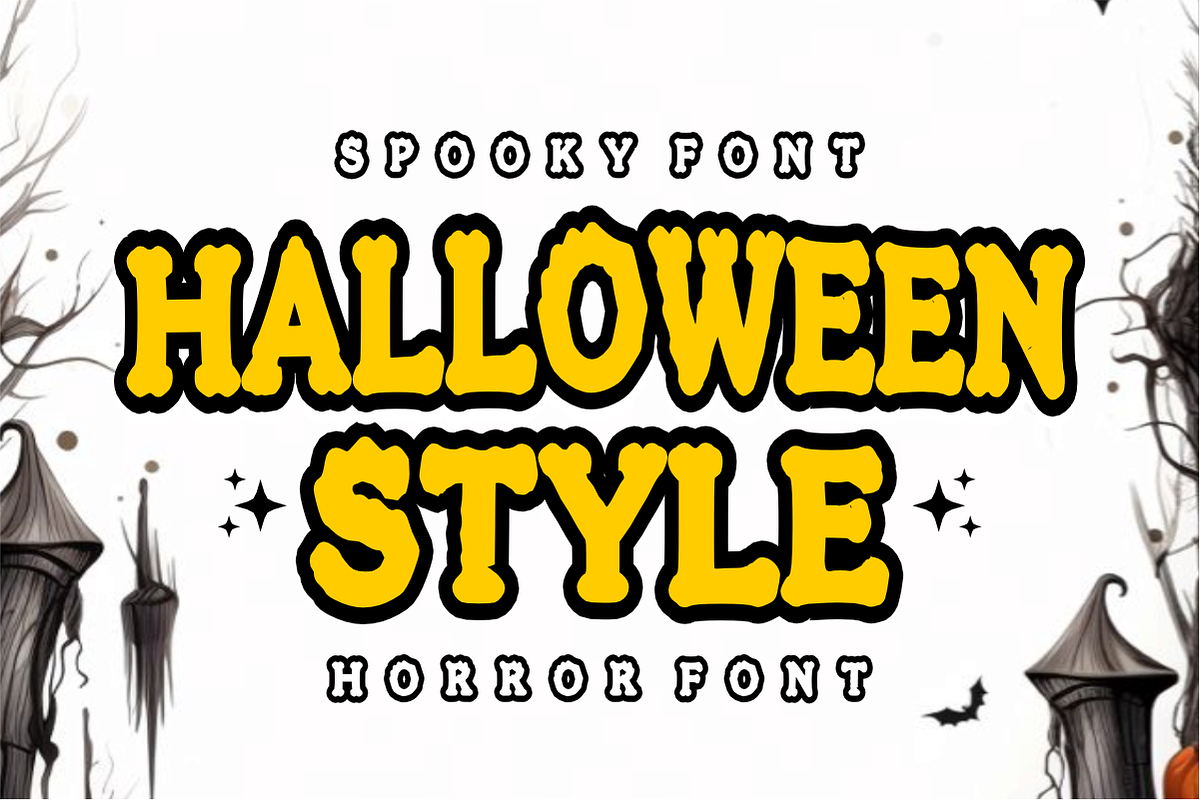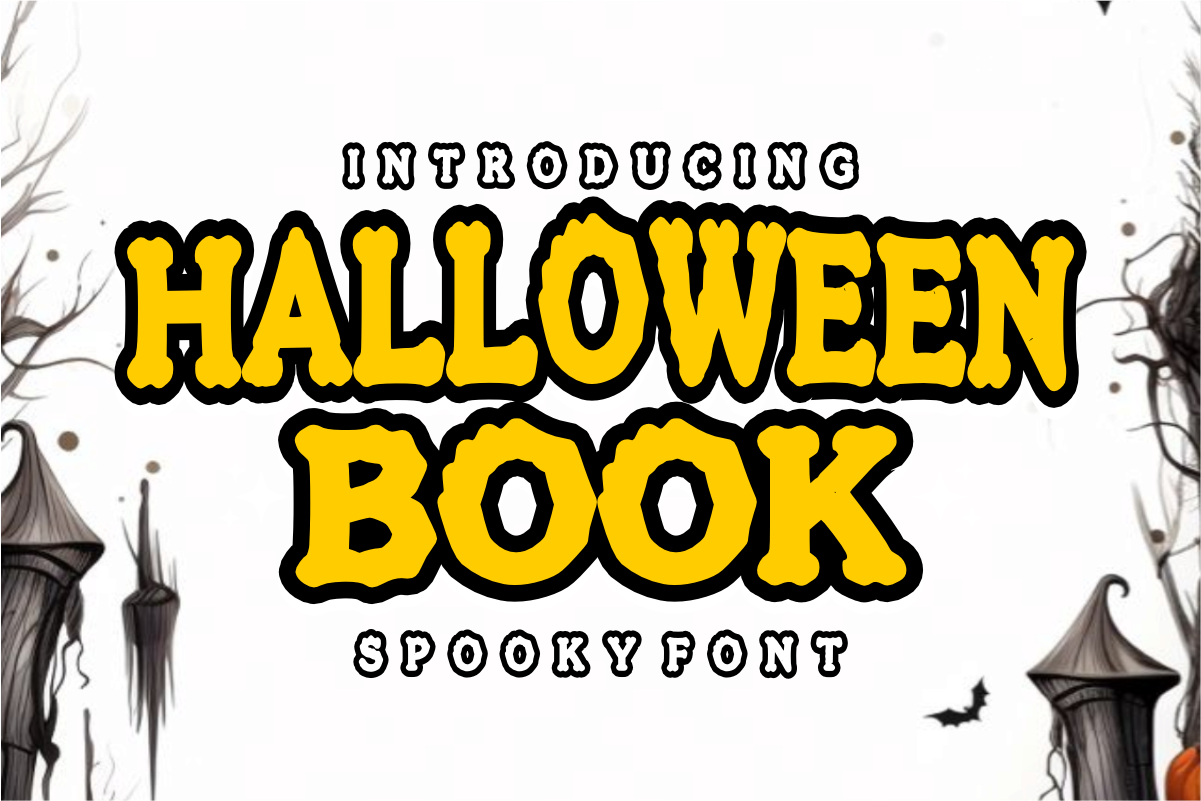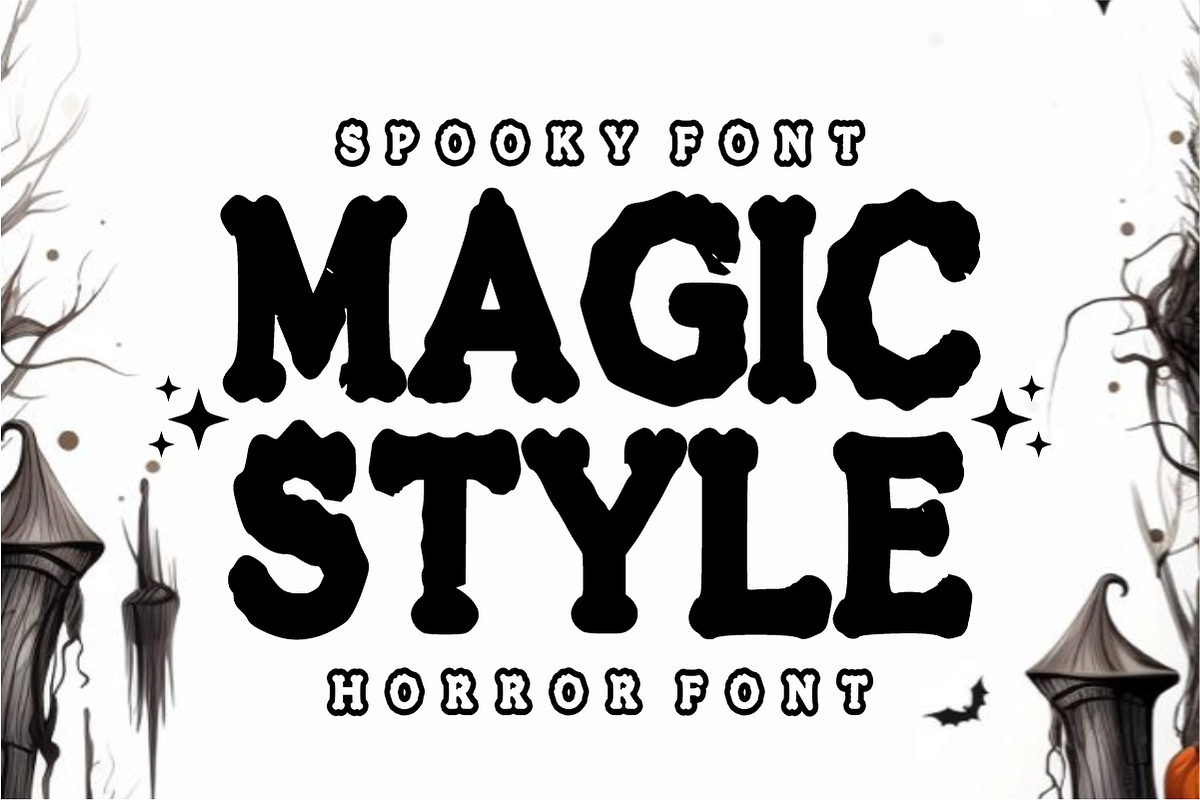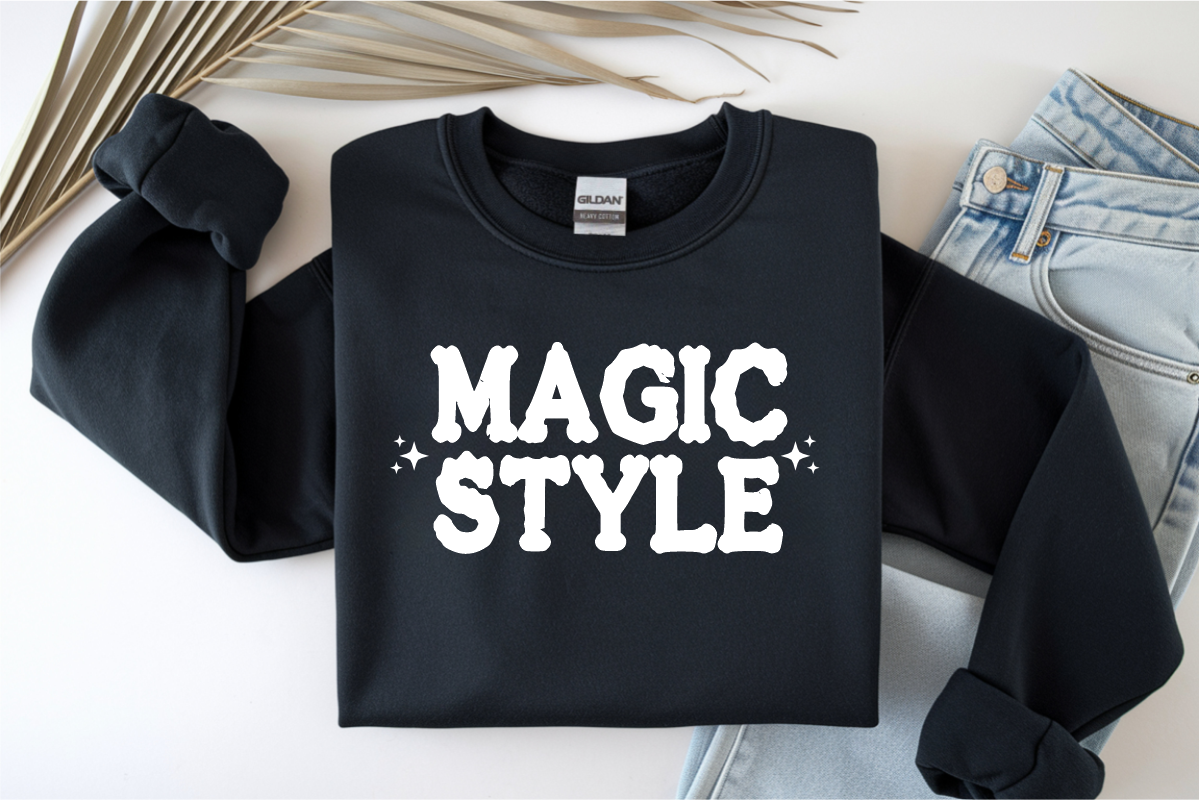
Halloween Book - Spooky Font
Halloween Book is a playful, spooky display font featuring bold, chunky letterforms with uniquely bumpy, textured edges. Perfect for seasonal crafting, children's storybooks, and creepy-cute holiday decor, this whimsical cartoon font adds a fun, eerie pop to any headline. Every character is cleanly vectorized to guarantee smooth, effortless cutting on Cricut and Silhouette machines.